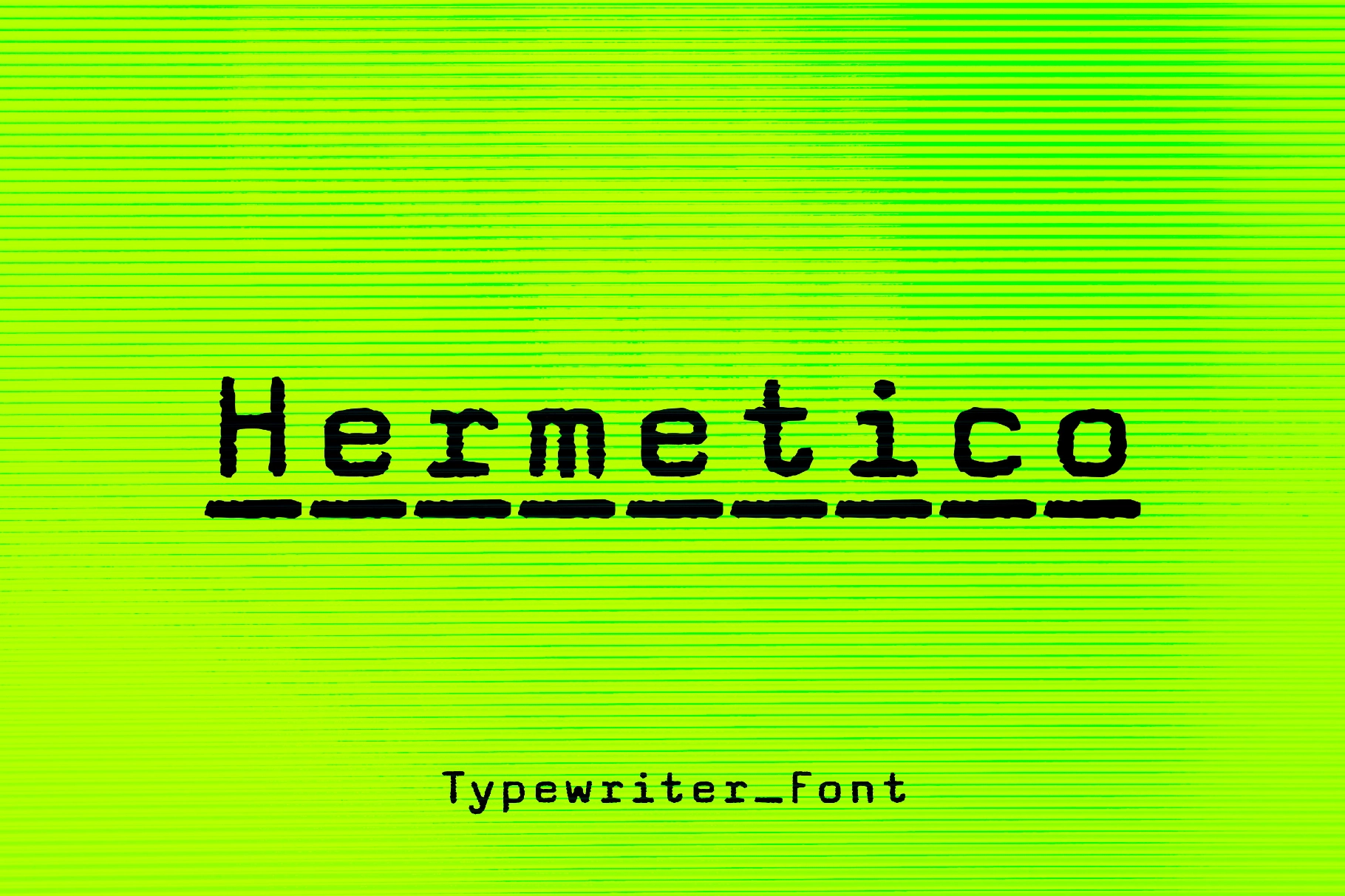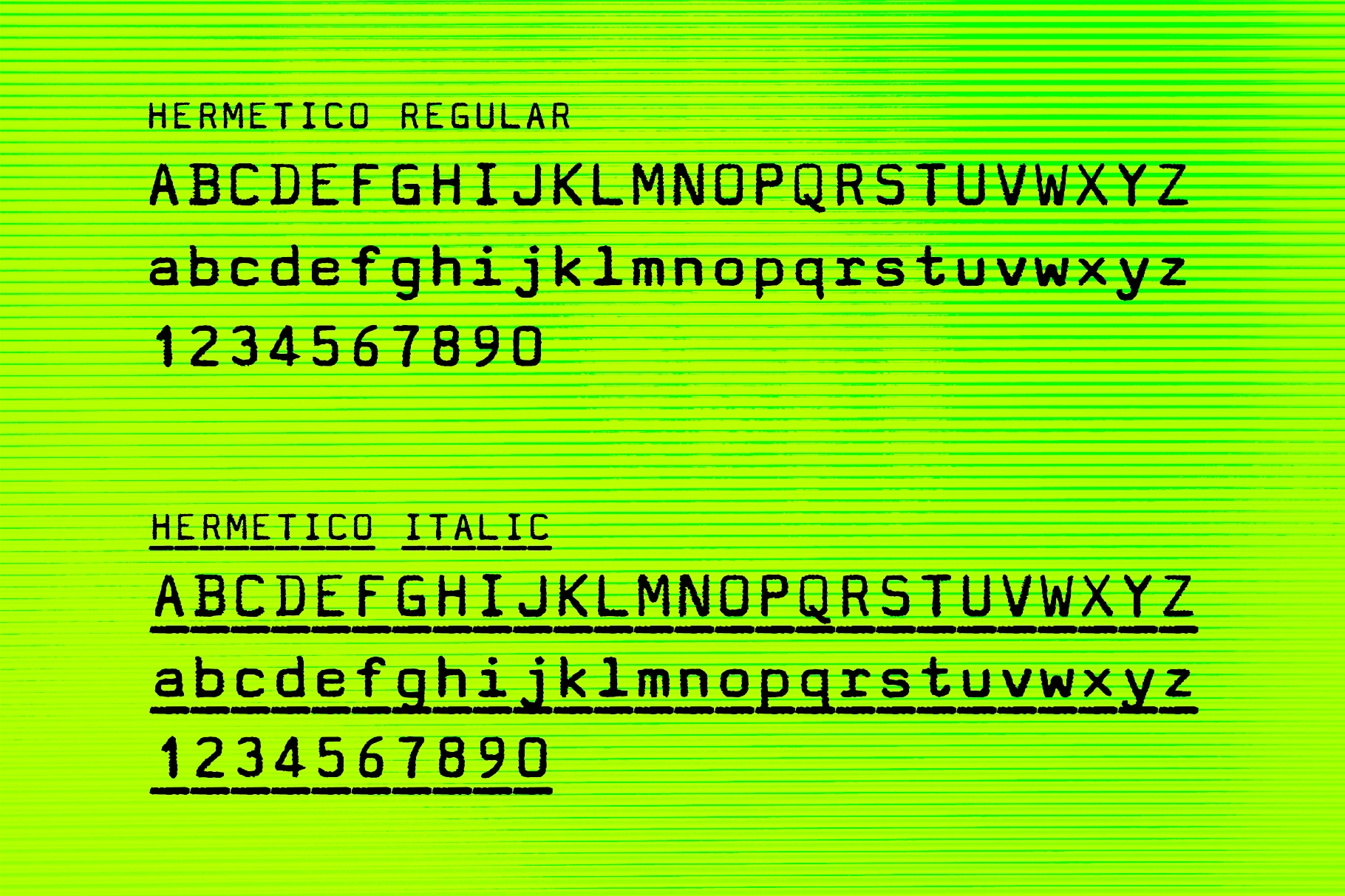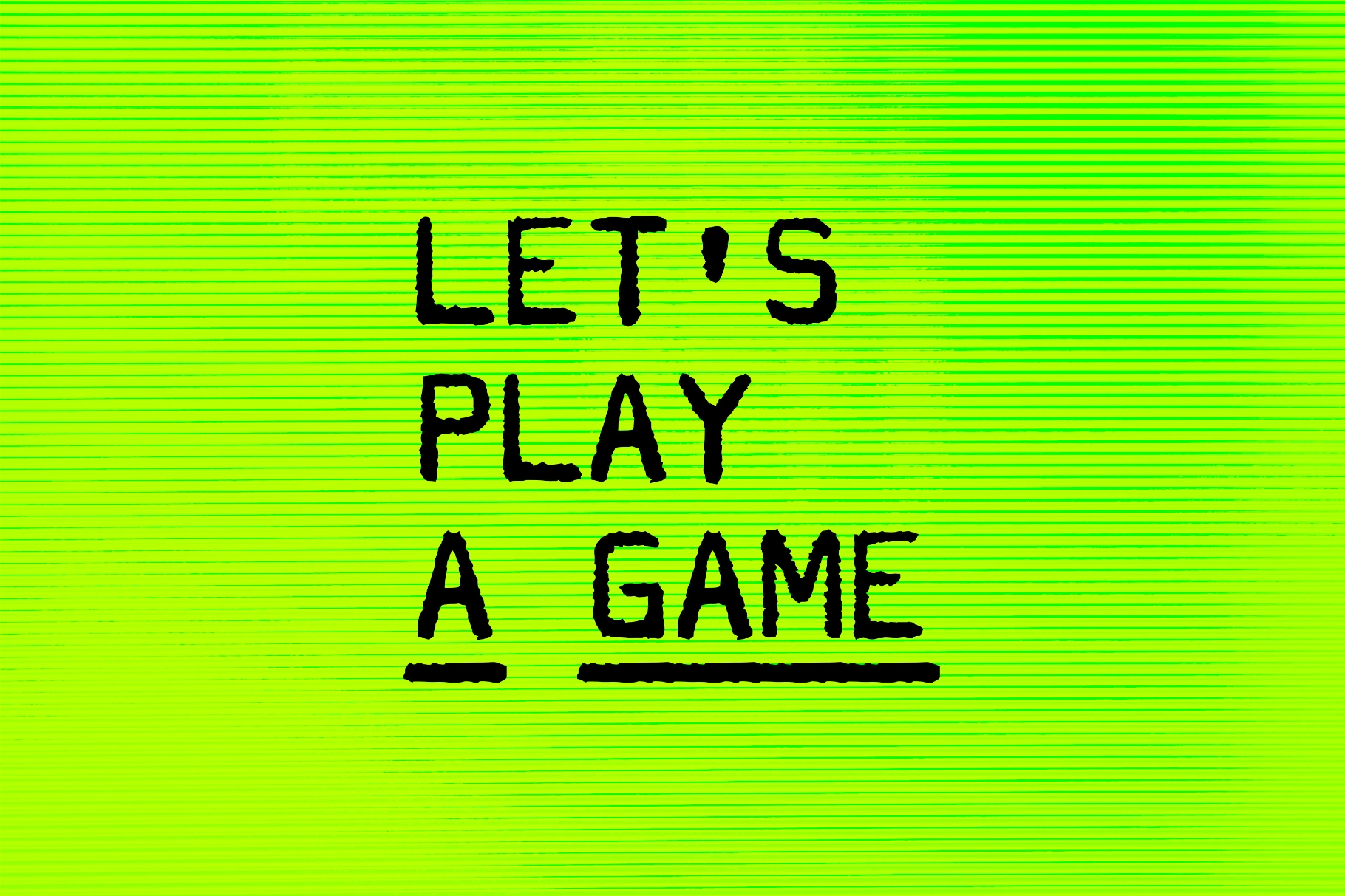
Hermetico Typewriter Font
Hermetico is a monospaced, stamp-driven typeface, part dot-matrix terminal, part worn office typewriter. Rounded rectangles, compact spacing, and even strokes create a clear, machine-cut cadence, while broken edges and ink-bleed textures introduce noise.
It works smoothly for tech-noir posters, glitchy album covers, zines, sci-fi UI mockups, game titles, and interfaces that reference terminals, dossiers, or surveillance files. Hermetico also holds up in editorial decks, product specs sheets, tech branding, résumé headers, poster grids, minimalist packaging, museum captions, and retro-flavored app graphics.